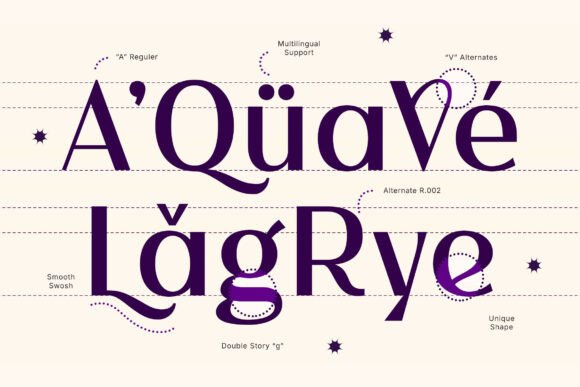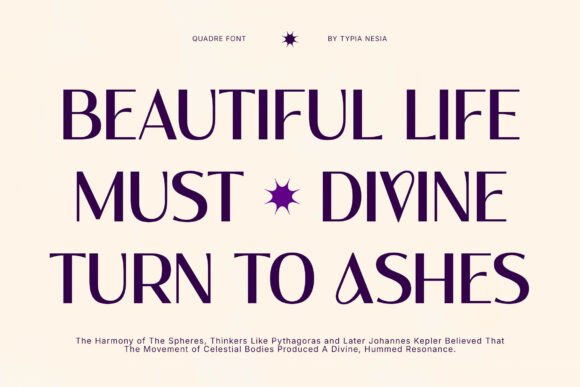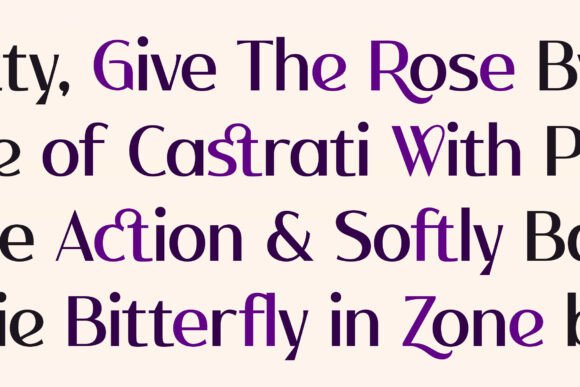
Quadre – Luxury Beauty Elegant Sans Serif – Modern Clean Logo Display Font Quadre is a modern elegant luxury sans serif font designed to express beauty and premium style.
Featuring clean lines, balanced proportions, and graceful curves, this typeface delivers a classy and feminine character with a refined modern touch It’s perfect for logo design, wedding invitations, cosmetic branding, fashion labels, skincare packaging, posters, and premium product packaging.